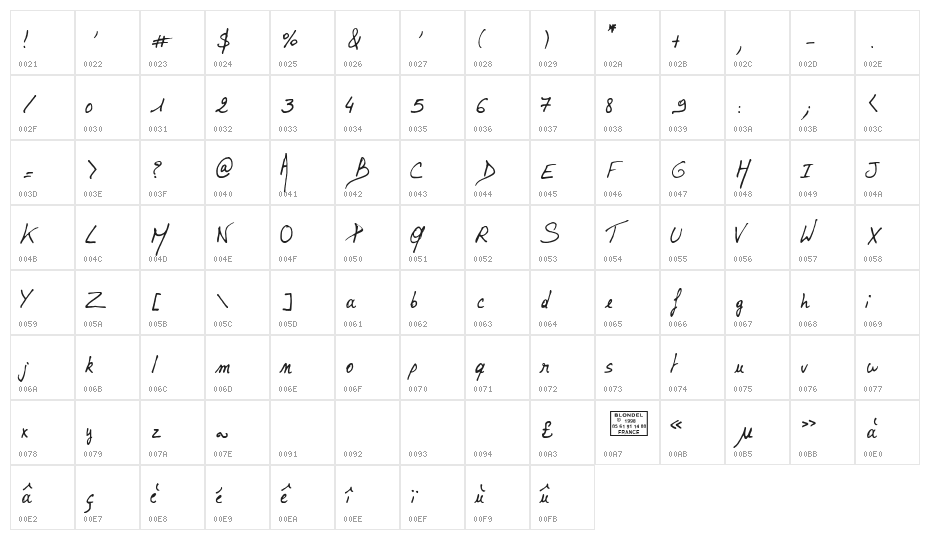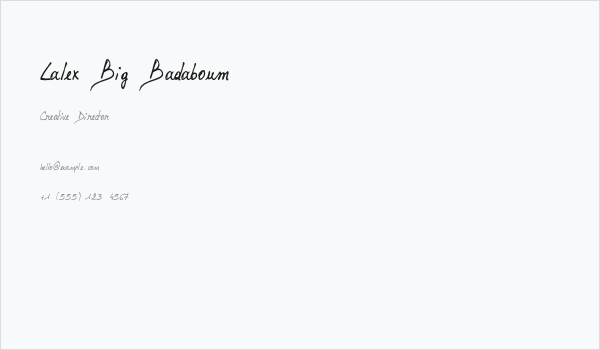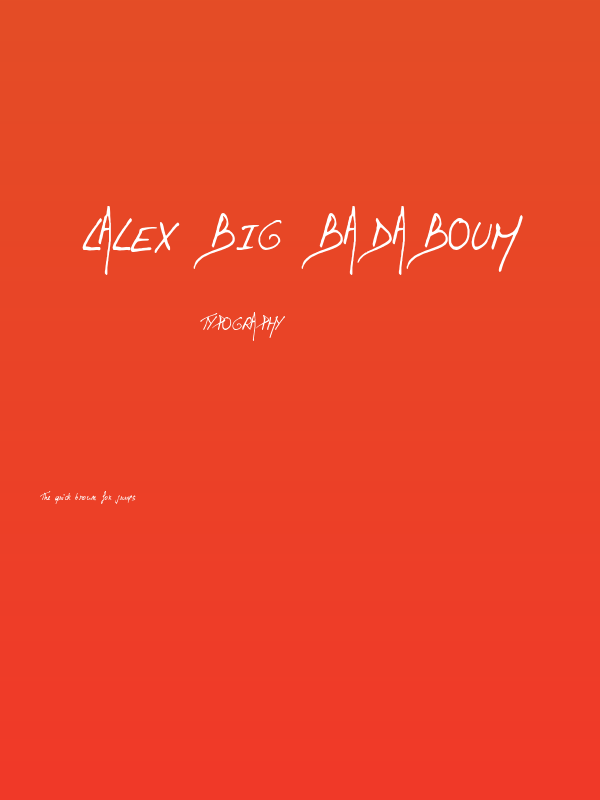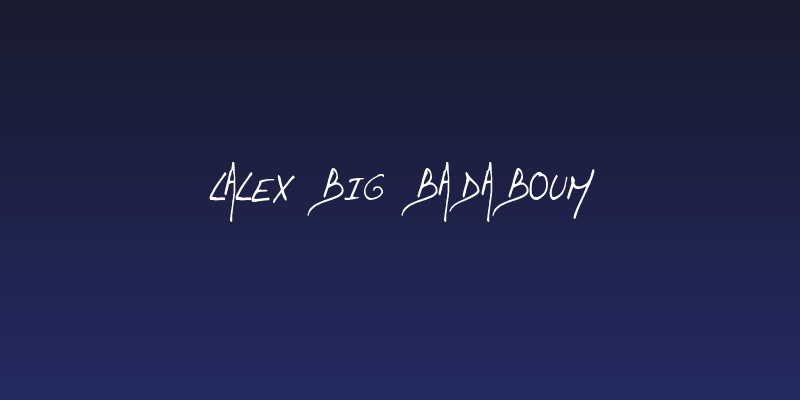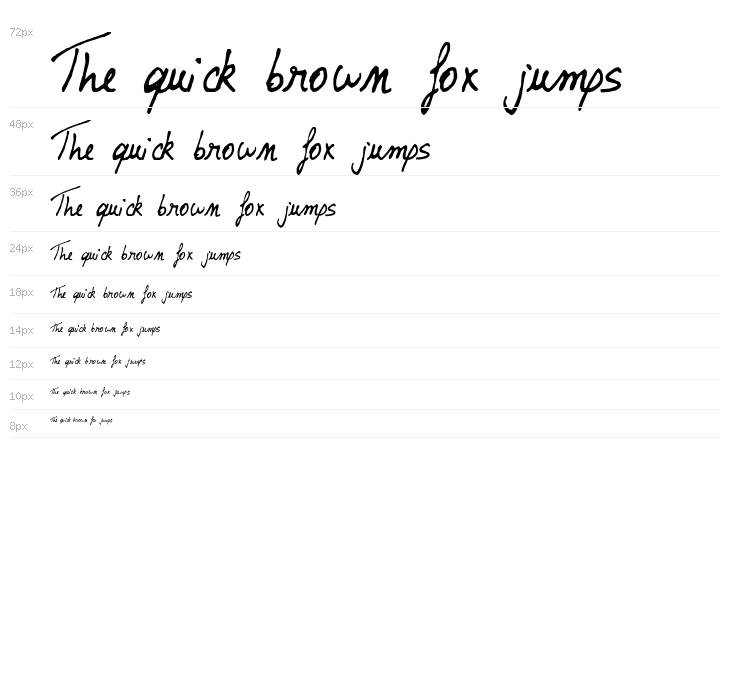
Lalex Big Badaboum Font
Lalex Big Badaboum Description
This font exudes a dynamic and energetic handwritten style, characterized by its bold and slightly erratic strokes. The uppercase letters are tall and slightly slanted, giving a sense of movement and spontaneity. The lowercase letters maintain a consistent flow, with some letters featuring unique loops and curves that add to the font's personality. Numbers are distinct and maintain the same lively style, while special characters are creatively integrated, enhancing the overall playful aesthetic. This font is perfect for projects that require a personal touch or a sense of informality.
| Proposed Projects | Ideal for greeting cards, personal branding, creative posters, and informal invitations. |